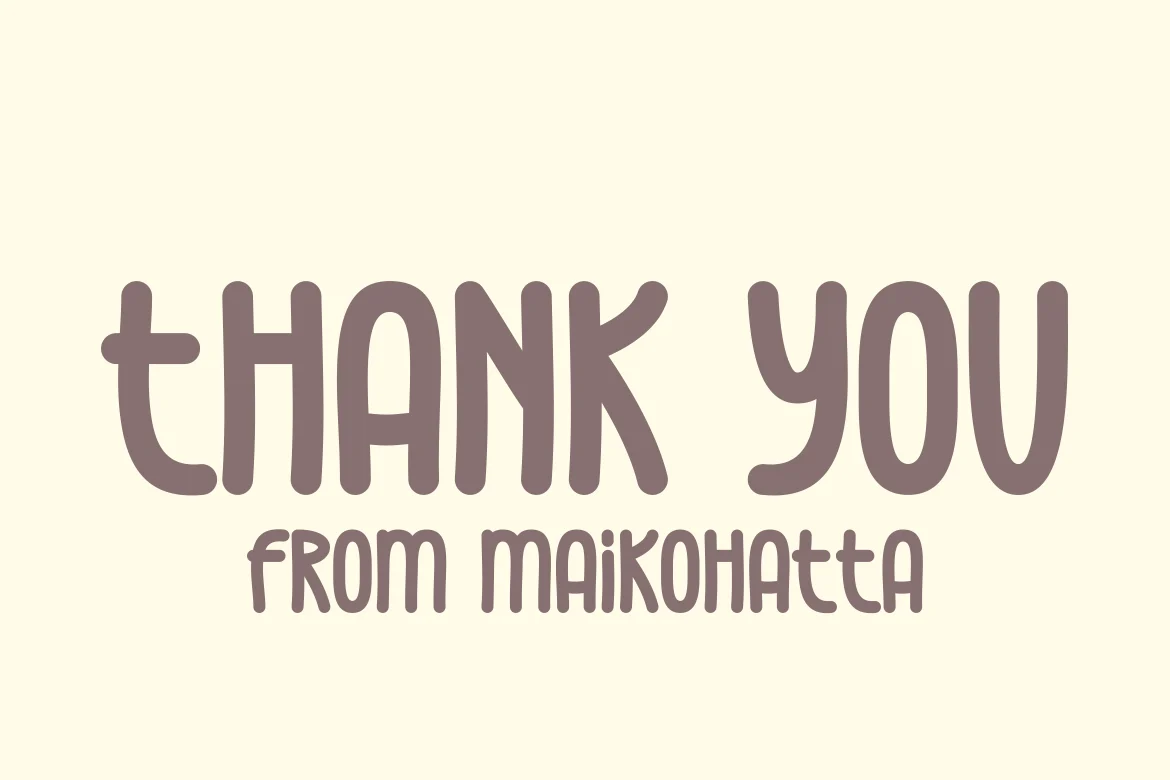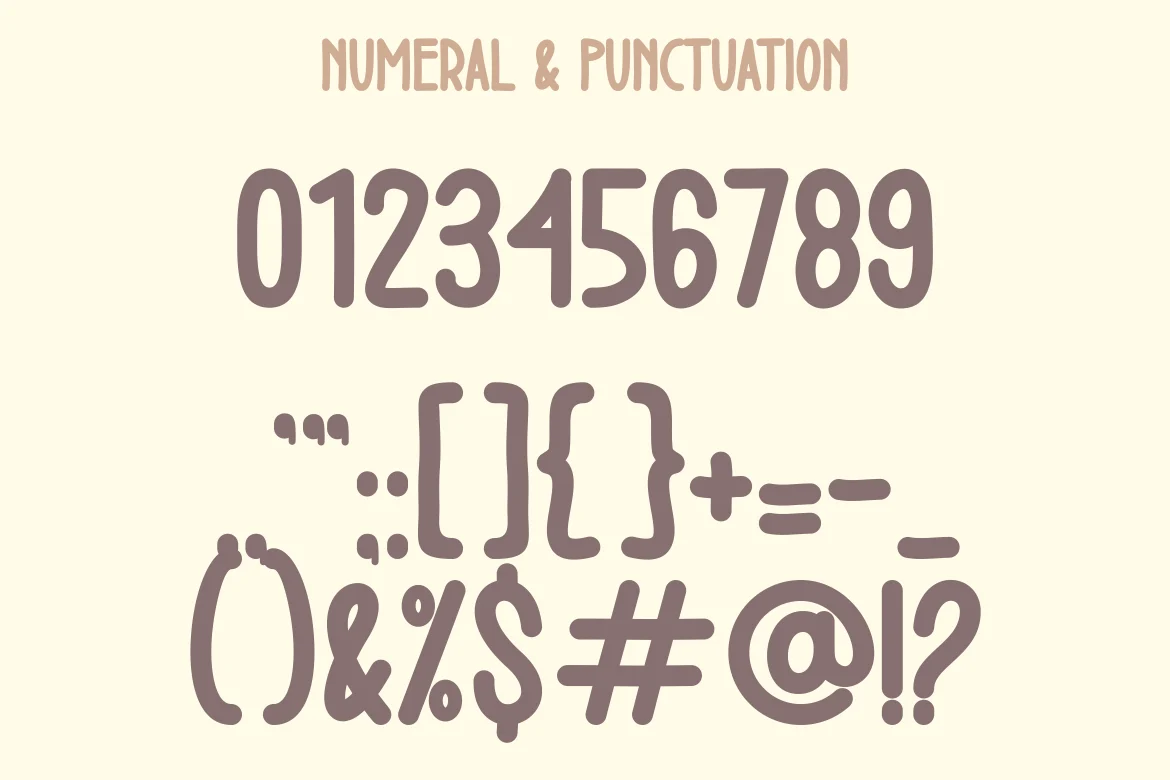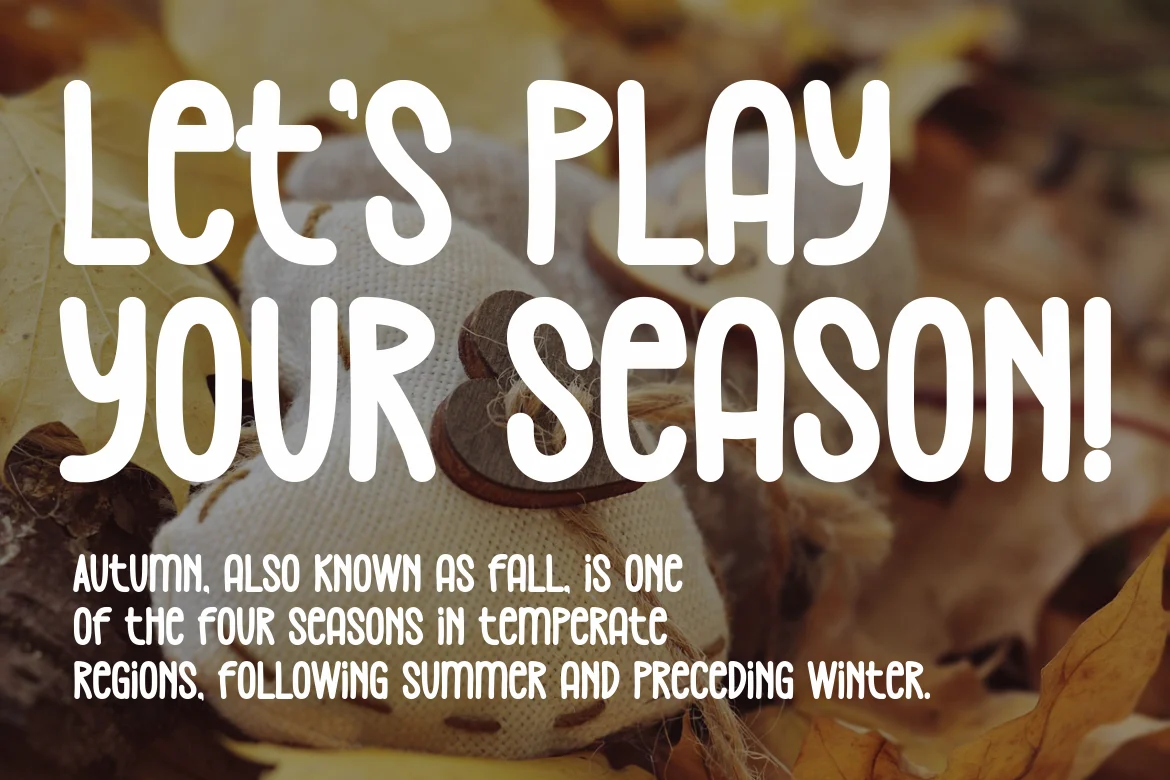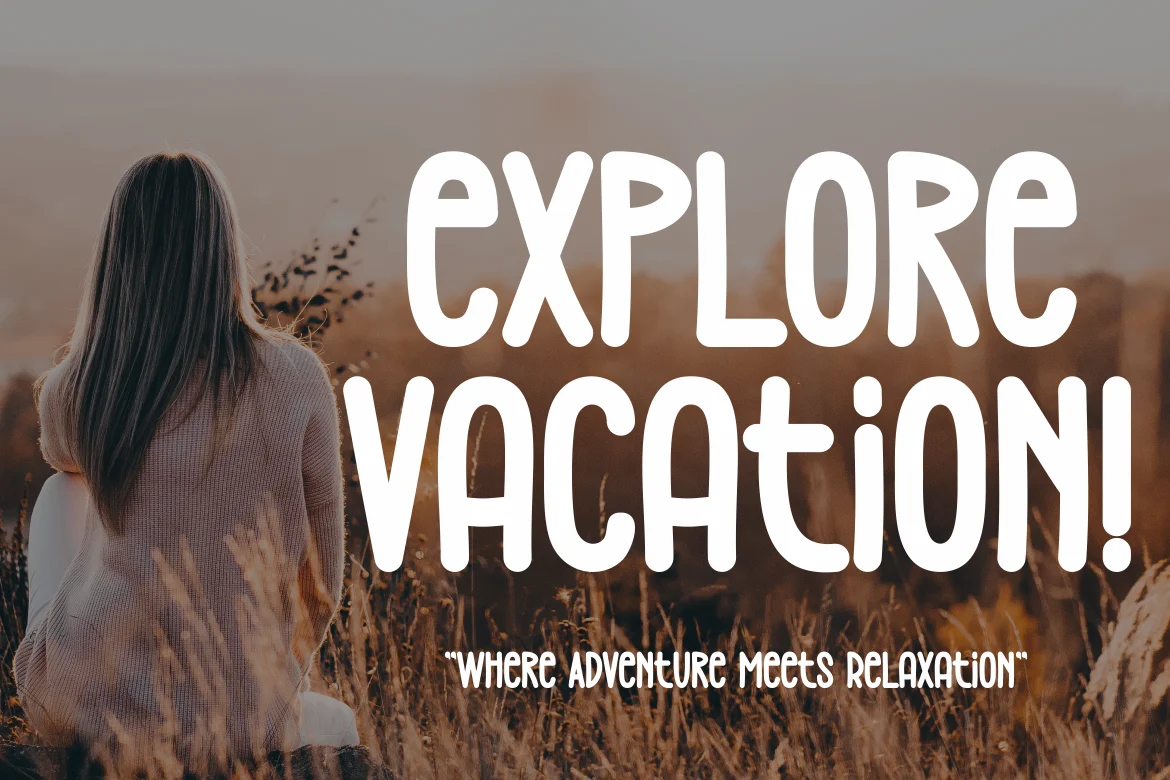
Karibia Autumn Font
Introducing our new product Karibia Autumn Font
This font is highly suitable for projects that aim to depict the beauty and charm of the autumn season. It works well for designs such as invitations, greeting cards, posters, and other creative projects, imparting a stunning natural touch and infusing the captivating ambiance of the fall season into every design.